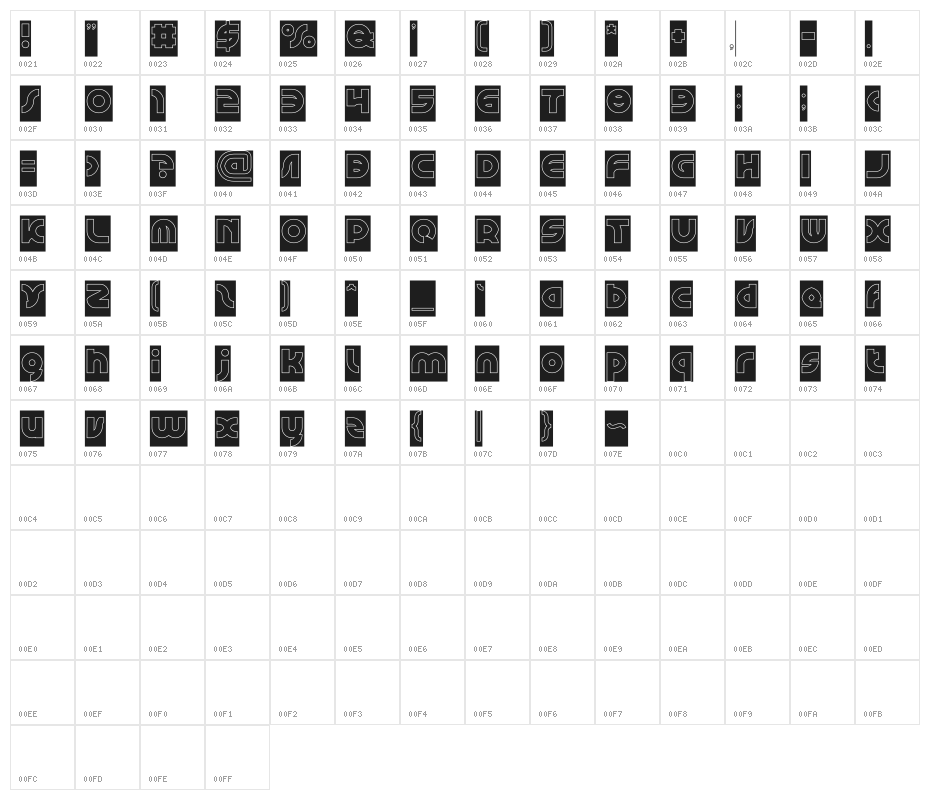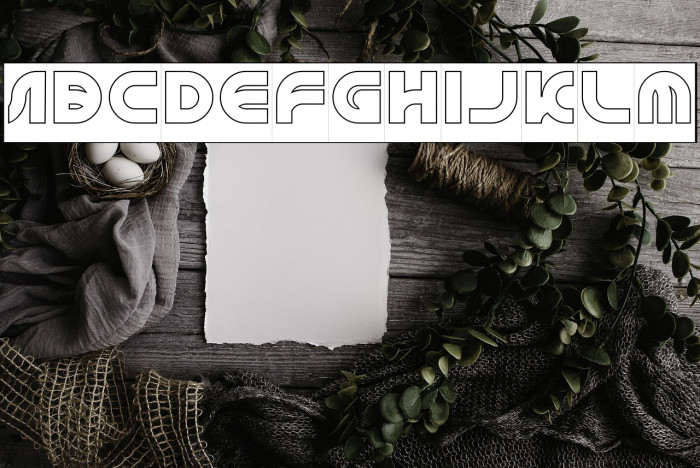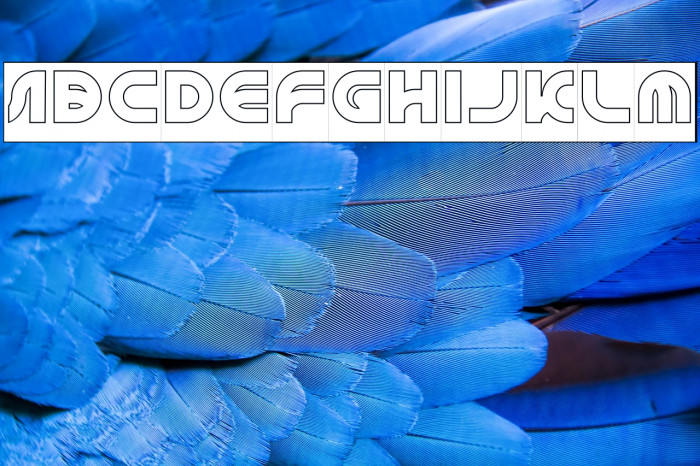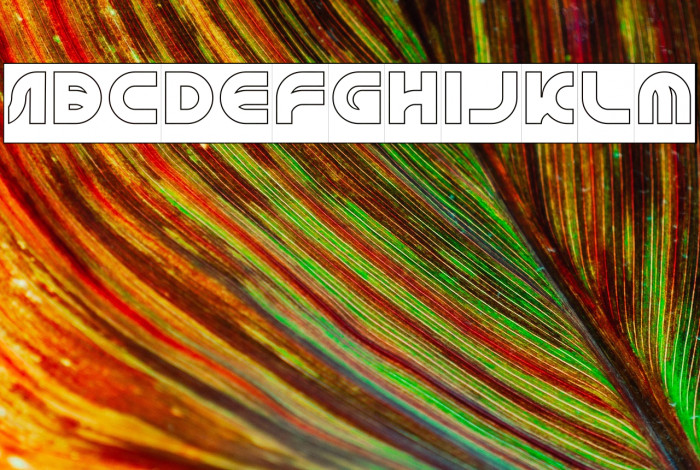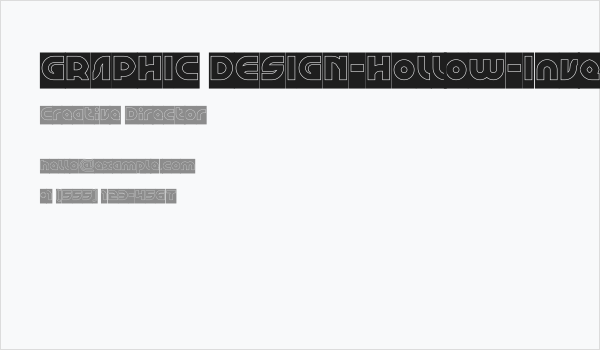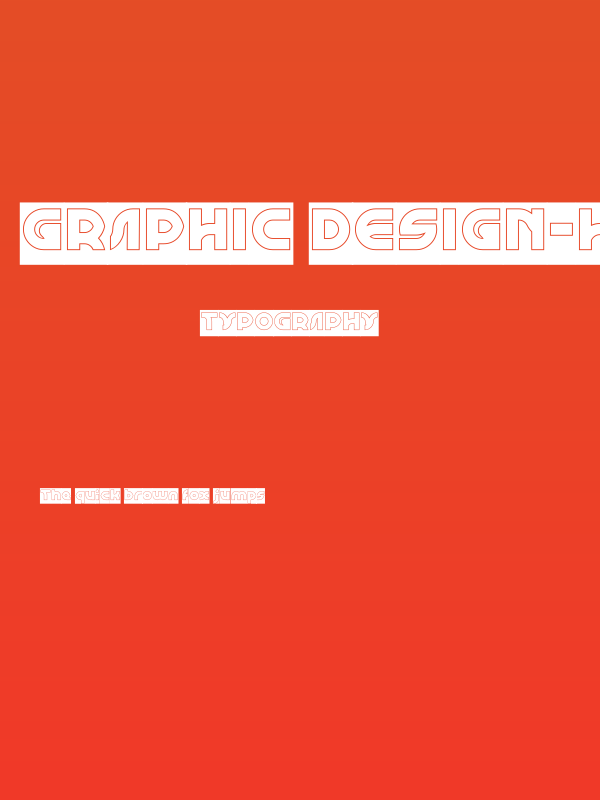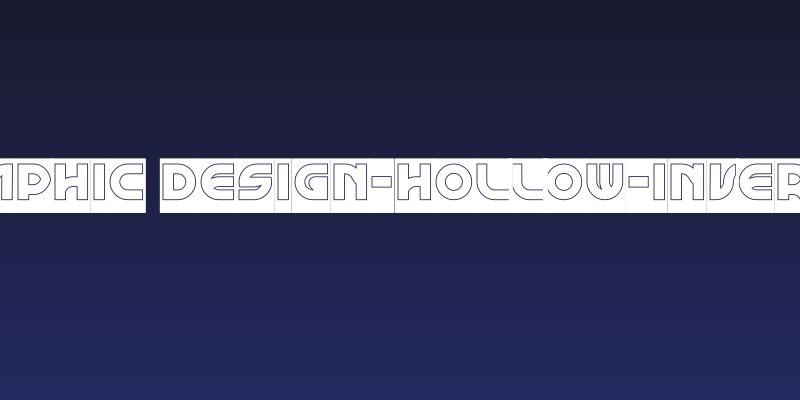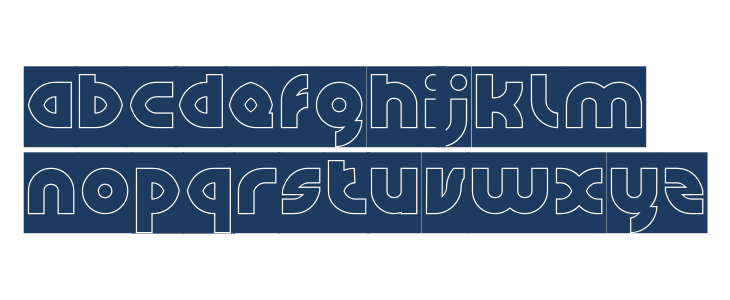
GRAPHIC DESIGN-Hollow-Inverse Font
GRAPHIC DESIGN-Hollow-Inverse Description
This font features a hollow, inverse design with bold, geometric shapes that create a striking visual impact. The characters are outlined, with the interior space left open, giving them a modern and futuristic appearance. The uppercase and lowercase letters maintain a consistent style, with rounded edges and a uniform thickness throughout. Numbers and special characters are designed to match the overall aesthetic, ensuring a cohesive look across all elements. The font's unique style makes it ideal for projects that require a bold and eye-catching typeface.